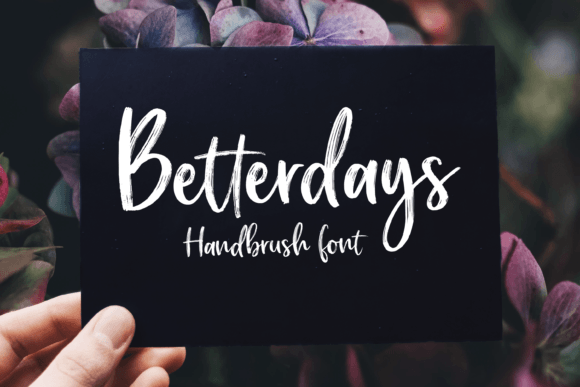
The Elusive Perfect Font: My Encounter with Betterdays
Ah, the quest for the perfect font. We’ve all been there – stuck in the middle of a project, pouring over font options, and yet, nothing seems quite right. I recall a particularly frustrating design session where I was tasked with creating a whimsical wedding invitation. My client wanted something delicate, elegant, and flowing, but not too over-the-top. I scoured font libraries, but every option seemed to fall flat. That was until I stumbled upon Betterdays.
A Delicate Gem: Betterdays Font Review
Betterdays is a delicate, elegant, and flowing handwritten font that has won my heart. Its beautiful and well-balanced characters make it an incredibly versatile choice, suitable for a wide range of designs.
- ✨ Delicate and elegant strokes
- ✅ Well-balanced characters for a harmonious look
- 💫 Supports a wide pool of designs, from whimsical to sophisticated
- 🎨 OpenType features for added creativity
- 🤔 Limited availability of certain stylistic alternates
- ⚠️ May not be suitable for very large or very small font sizes
The Story Behind Betterdays: Designer Inspiration
Betterdays was designed with the intention of creating a font that exudes elegance and sophistication. The designer aimed to craft a font that would be versatile and suitable for a wide range of designs, from formal invitations to creative projects. While the real story behind Betterdays may be unknown, it’s clear that the designer poured their heart and soul into creating a truly special font.
Q: What type of designs is Betterdays best suited for?
A: Betterdays is a versatile font suitable for a wide range of designs, including formal invitations, creative projects, and designs that require a touch of elegance.
Q: Is Betterdays a difficult font to read?
A: No, Betterdays is a clear and legible font, making it suitable for designs that require easy readability.
| Font Name | Betterdays Font |
| Author | Letterflow Studio |